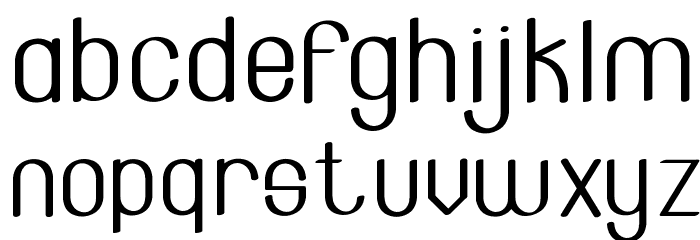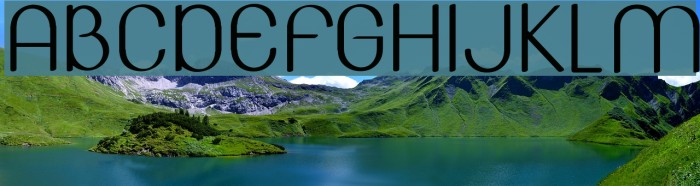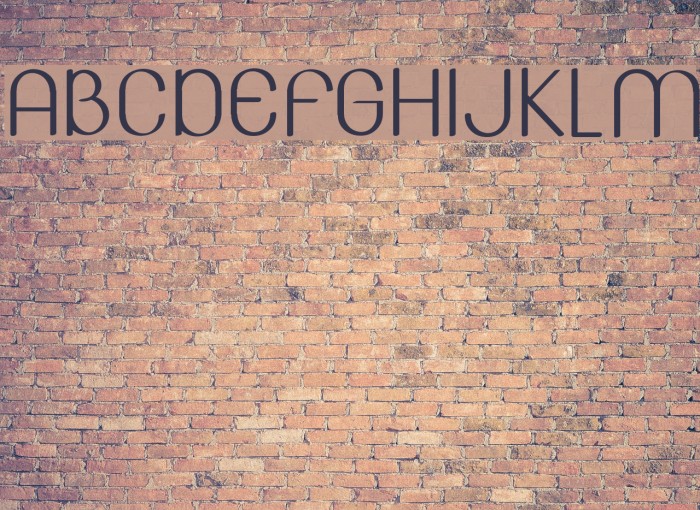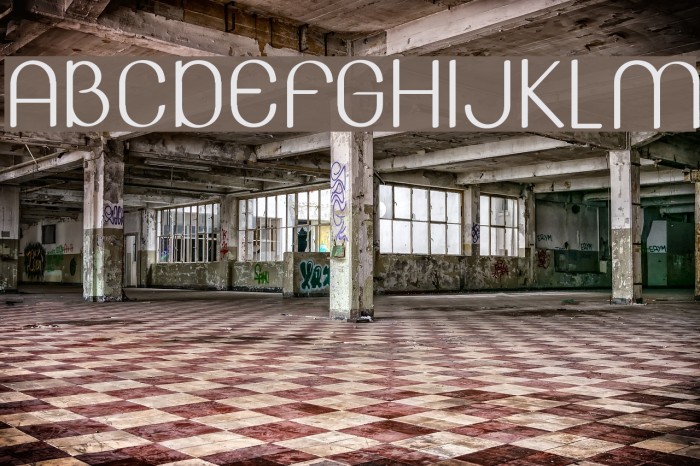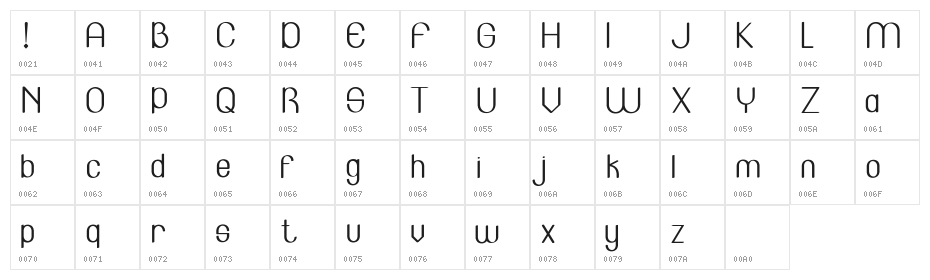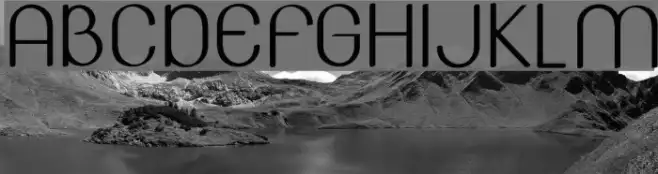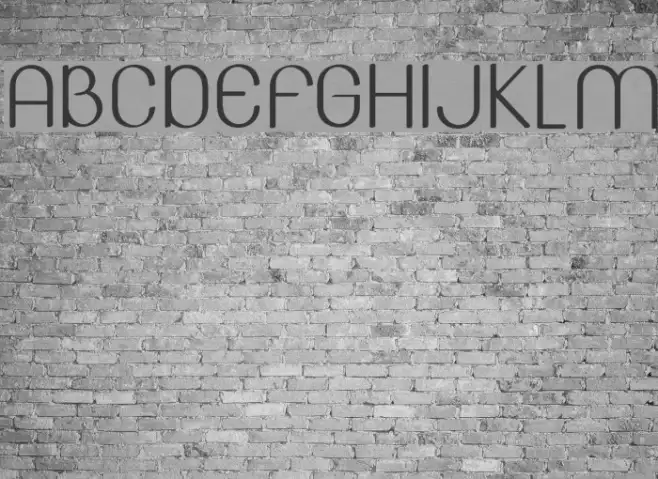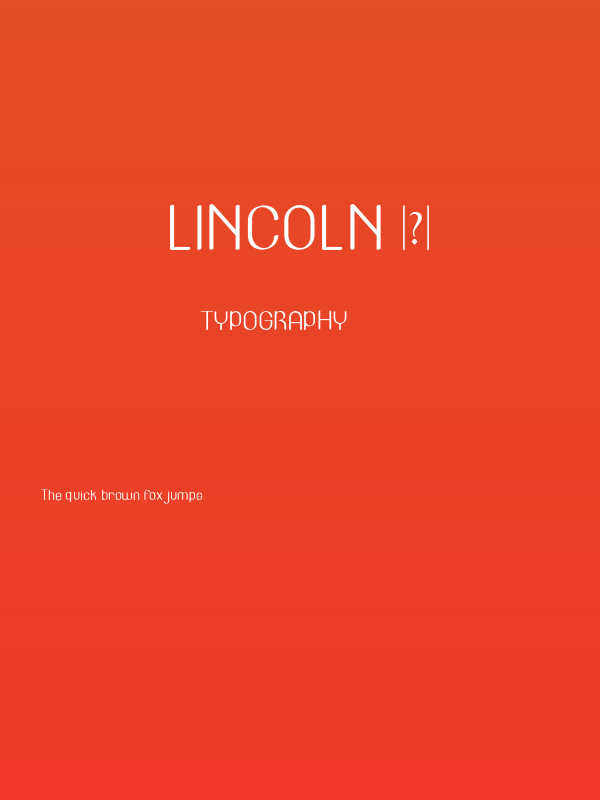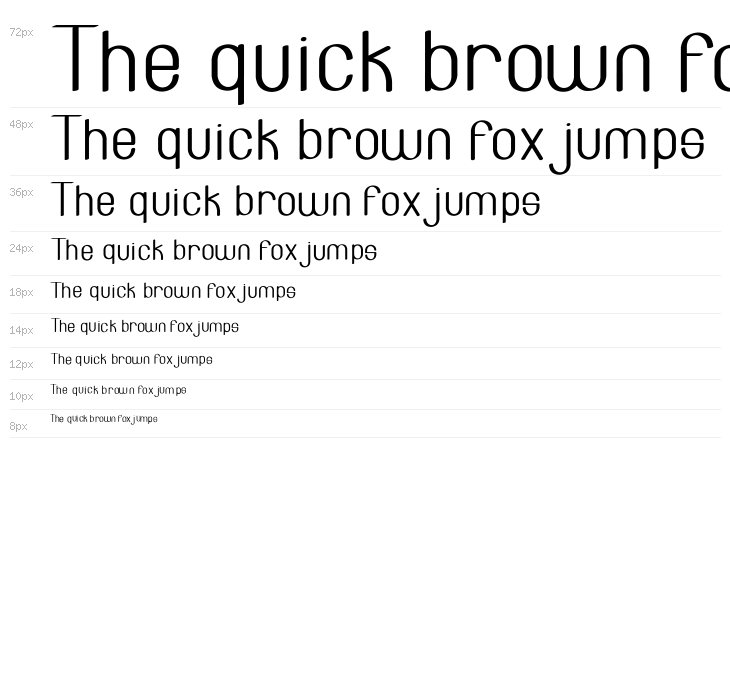
Lincoln - Font
This font features a unique blend of geometric and modern elements, characterized by its clean lines and minimalistic design. The uppercase letters exhibit a distinct angularity, while the lowercase letters maintain a smooth, rounded appearance. The font's overall structure is balanced, with consistent stroke widths that provide a harmonious look. The special characters, such as the question mark and exclamation point, are designed with a playful touch, adding a sense of whimsy to the otherwise sleek design. This font is versatile, suitable for both digital and print media, and can be used to create a contemporary and stylish aesthetic.
A modern, geometric font with clean lines and a balanced structure.
- Proposed Projects: Ideal for branding, advertising, web design, and editorial layouts.
- Use Case: Headlines, Logos, Branding